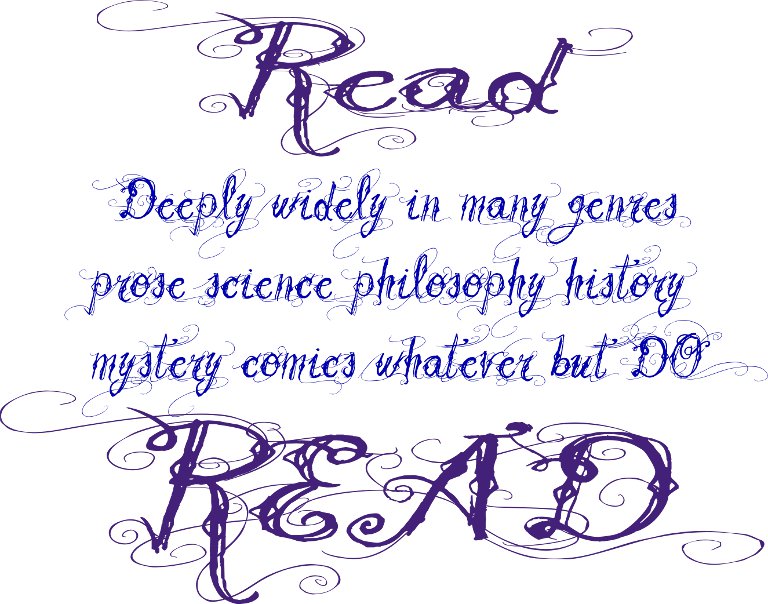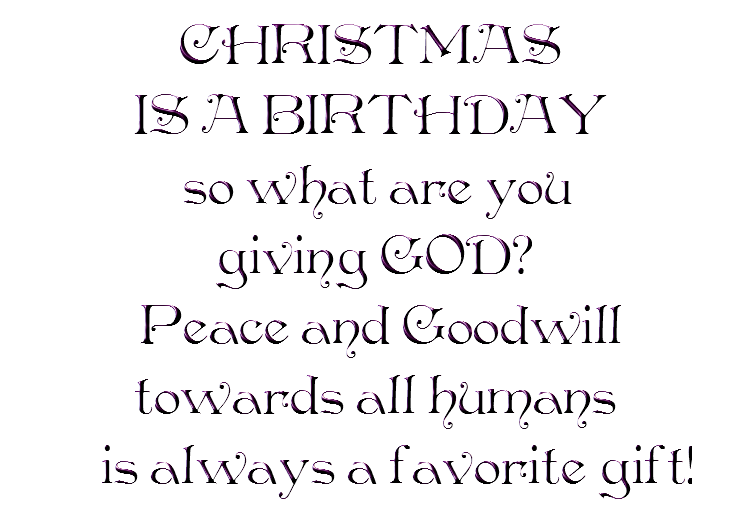
2015 XMAS ECARDS
O Virtus Sapientiae
for many Catholics and Protestants its Holy Wisdom Day December 16 / 17
You may be aware of the standard Latin Antiphons but here's a hymn / antiphon created by Abbess Hildegarde of Bingen and yes its one of my #Xmas #freebies you can download it! Its a png file so you should be able to enlarge to match A4 and larger sheets of paper or other materials.
I hope I got the layout right. My aim was to suggest an Interlinear Gloss effect as seen in many manuscripts with the English translation in a smaller font size in red.
About the translation. Those who know Latin may quibble I could have may the translation more poetic but I was striving to capture or echo both Hildegardes simple elegance and the spirit as well as the meaning hence sudat as works and virtus as excellence.
I choose a uncial font as that seemed to be the closest I could get to the originals.
Hildegarde's scribe probably would have used something closer to a half uncial?
Text and Pictures TWO
I'm thinking of redoing an old design called BUTCH
#Text and #Picturesand I'm wondering about how to max the visual irony effect.
Does combining color font and text in unexpected ways mees with your head?
Do People think of cursive or decorative fonts as being more feminine?
Does the use of such on one word create a disturbing image?
Here's one idea I'm thinking about and still refining.
| Copyright Julie Vaux 2015 BUTCH has certain ... connotations ... For contrast here's a link to the older version BUTCH So what do you think ? Rework it or not? |
Text and Pictures One
TEXT AND PICTURES ONE
Is this text a picture
or suggest images to you?
Yes this isn't suppose to be great art. It's just an image I made for Facebook but let's consider the relation of text and image.
Our modern ABC script has been in use for centuries and unlike China and those countries that have scripts based on Chinese characters our writing system is not ideographic or pictography bot more or less phonetic with varying degrees fo matching symbol to sound.
I probably should have done this in an angry red?
J for January
J for January .
Here's what J looks like in various fonts.
Hope it gives you some inspiration for #calligraphy and #typography!